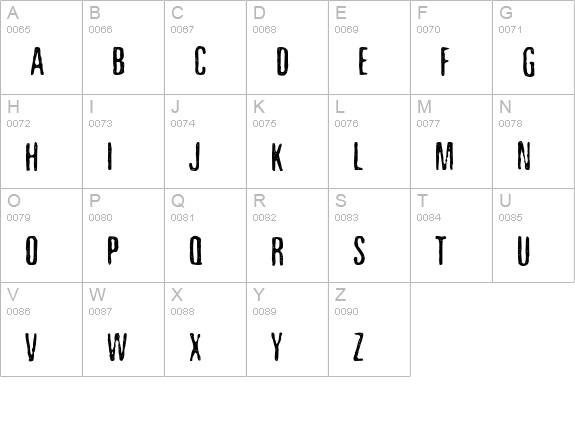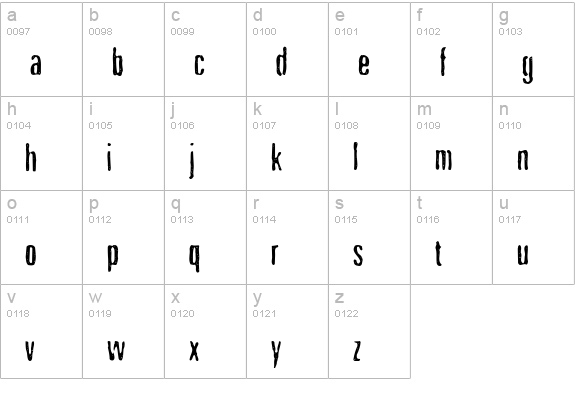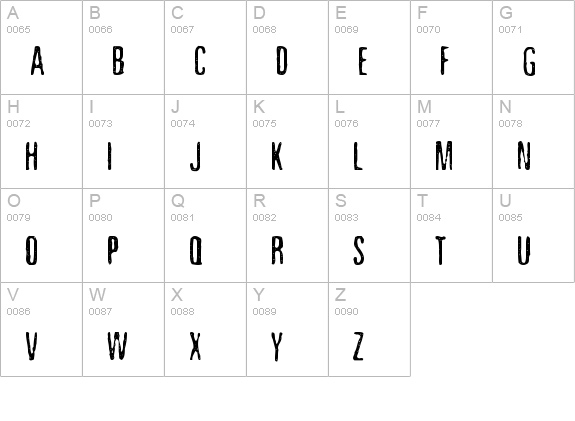
Nicotine Stains Font Details
Introducing Nicotine Stains font, a unique and edgy typeface that captures the essence of vintage grunge with its rough edges and distressed appearance. This font exudes a sense of rebelliousness and raw energy, making it perfect for projects that require a touch of attitude. Nicotine Stains font is a versatile typeface that can be used for a variety of design projects, from posters and album covers to branding and packaging. Its bold and rugged aesthetic adds a distinctive flair to any text, making it stand out from the crowd. What's even better is that Nicotine Stains font is completely free to download at FontsMarket.com. So you can add this eye-catching font to your collection without breaking the bank. Don't miss out on the opportunity to enhance your designs with the gritty charm of Nicotine Stains font. Download it now and let your creativity shine!